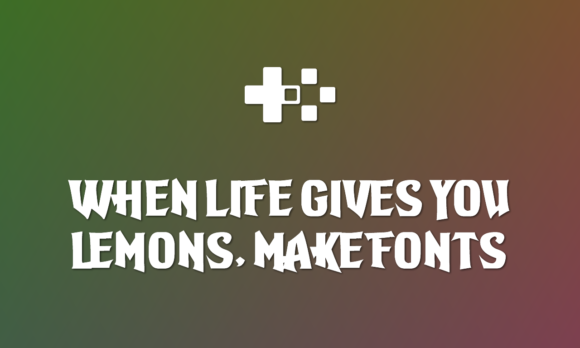
Igniting Your Designs with the Breathe Fire III Font
Have you ever been working on a project and suddenly, a spark of creativity hits you? The ideas start flowing, and you can’t help but feel a rush of excitement. That’s exactly what the Breathe Fire III Font aims to do – ignite your imagination and breathe life into your designs.
This modern yet whimsical display font is designed to transport your designs to a magical world. With its unique style and flair, the Breathe Fire III Font is perfect for adding a touch of personality to your projects. Whether you’re working on a branding campaign, creating a social media graphic, or designing a book cover, this font is sure to bring your ideas to life.
As a valuable addition to any designer’s toolkit, the Breathe Fire III Font offers endless possibilities for creativity and self-expression. Its versatility and unique charm make it a must-have for anyone looking to breathe new life into their designs.
Breathe Fire III Font Key Features
- Font Family: Breathe Fire III is a sans-serif font family.
- Character Set: Supports a wide range of languages, including Latin, Cyrillic, and Greek scripts.
- Size and Resolution: Designed for use at medium to large sizes (12-72 points) and high resolutions (300 DPI and above).
- Unique Characteristics: Breathe Fire III features a bold and edgy design aesthetic, with distinctive letterforms and a dramatic flair.
Breathe Fire III Font Review
I recently had the chance to work with the Breathe Fire III font, and I have to say, it’s a unique and attention-grabbing choice for any design project. ✨ The font’s bold and fiery aesthetic immediately catches the eye, making it perfect for titles, headings, or any text that needs to stand out.
Here are some of the things that work well with Breathe Fire III:
- ✨ High contrast and readability: Despite its bold appearance, the font is surprisingly easy to read, even at smaller sizes.
- ✨ Versatility: Breathe Fire III can be used in a variety of design contexts, from sports and action to music and entertainment.
- ✨ Unique character: The font’s distinctive design elements, such as the flame-like strokes and rough textures, add a lot of visual interest to any design.
- ⚠️ Limited legibility at very small sizes: While Breathe Fire III is generally easy to read, it can become difficult to decipher at very small sizes or when used in complex layouts.
Overall, Breathe Fire III is a great choice for designers who want to add a bold and attention-grabbing element to their projects. While it may not be suitable for all design contexts, its unique character and high contrast make it a great option for the right application.
Tips for Getting the Most Out of Breathe Fire III Font
Here are some tips to help you get the most out of the Breathe Fire III Font:
- Use the font to create bold, eye-catching headlines.
- Pair the font with other bold, sans-serif fonts to create a striking visual effect.
The Breathe Fire III Font is perfect for:
- Creating bold, attention-grabbing headlines.
- Designing
Alternative Fonts to Breathe Fire III
Font 1: Great Vibes
Great Vibes is a modern, handwritten font perfect for creative and artistic designs. It’s ideal for headings and titles in magazines, posters, and advertisements.
Compared to Breathe Fire III, Great Vibes has a more casual and laid-back feel. While Breathe Fire III is more aggressive and energetic, Great Vibes is more relaxed and friendly. Use Great Vibes when you want to convey a sense of creativity and playfulness.
For optimal readability, we recommend using the Breathe Fire III font at a minimum size of 12 points. For body text, use a line height of at least 1.5 times the font size. This will ensure clear readability and a visually appealing design.